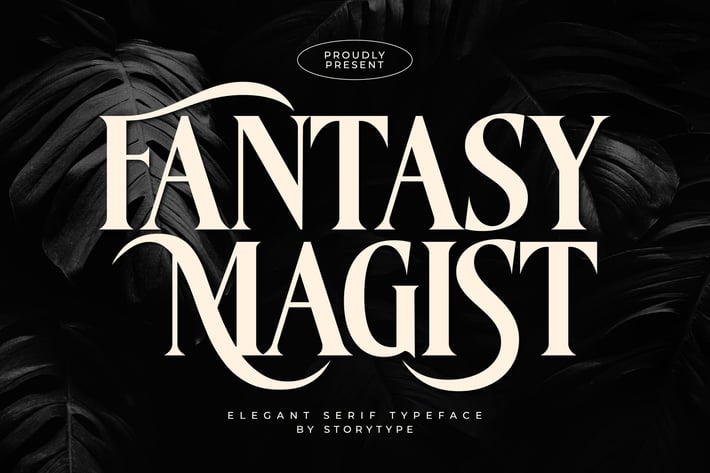
Fantasy Magist - Elegant Serif Typeface
Here is Fantasy Magist, a beautiful serif font that combines modern style with old-fashioned charm. This stylish font is great for making headlines that stand out, logos that look classy, and beautiful wedding invitations. Its clean lines and artistic curves give any design a classic and classy look, which makes it perfect for branding, editorial work, and high-end products.
Regular style with beautiful alternates
Full set of numbers and punctuation
Support for multiple languages